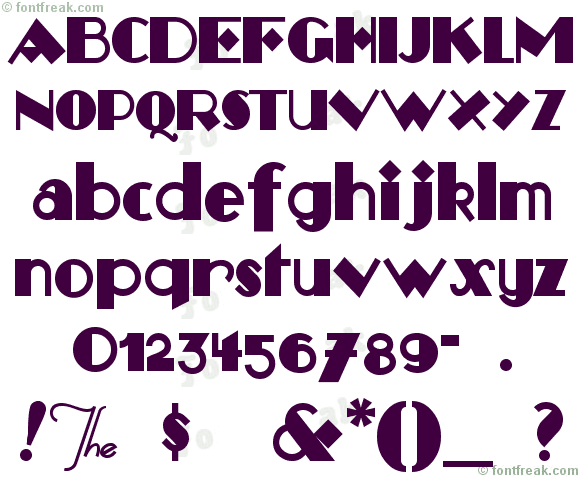
Monkey-Fingers
About Monkey Fingers
Monkey Fingers font, created by Nick Curtis in 1999, is a unique display typeface that stands out for its playful character and whimsical design. This font exudes a sense of fun and creativity, making it an ideal choice for projects that aim to capture attention and evoke a sense of joy. The visual characteristics of Monkey Fingers are defined by its medium stroke weight and consistent spacing, which contribute to its legibility while maintaining a distinctive style. The font features rounded edges and quirky letterforms that add a decorative flair, inviting viewers to explore its playful nature.
Given its vibrant personality, Monkey Fingers is best suited for various creative applications. It works beautifully for children's book covers, where its engaging design can attract young readers. Additionally, it can enhance the visual appeal of restaurant menus, particularly those that focus on a fun and casual dining experience. Event posters, such as music festivals or art fairs, will benefit from Monkey Fingers' energetic vibe, making it an excellent choice for promotional materials. Moreover, this font is perfect for social media graphics, where content creators can leverage its eye-catching style to increase engagement.
What makes Monkey Fingers truly stand out is its ability to blend playfulness with functionality. It captures the essence of creativity while ensuring that messages remain clear and engaging, making it a versatile addition to any designer’s toolkit.